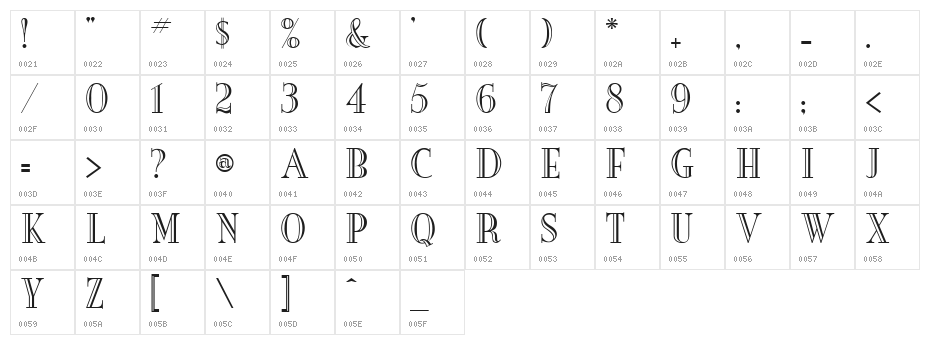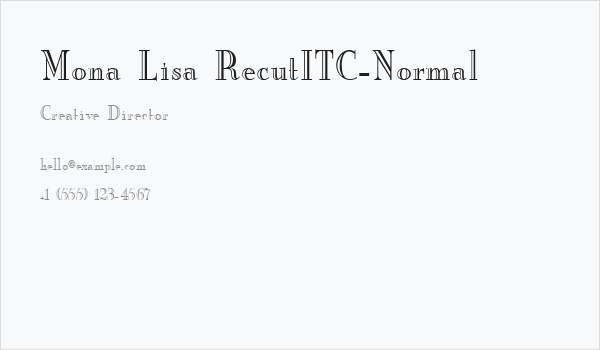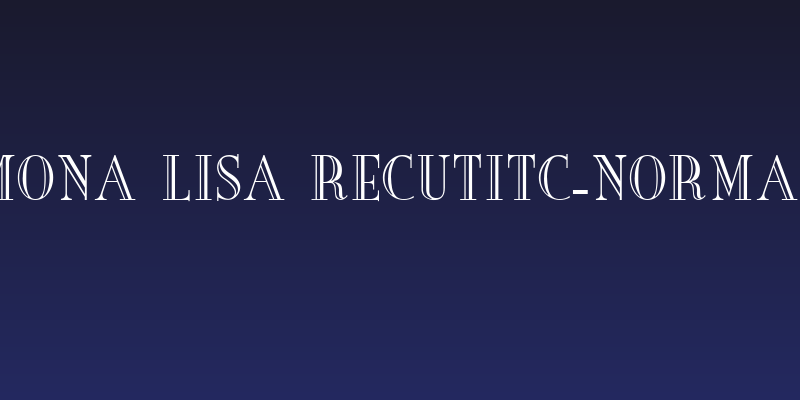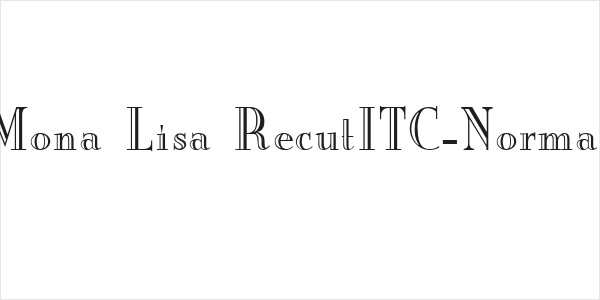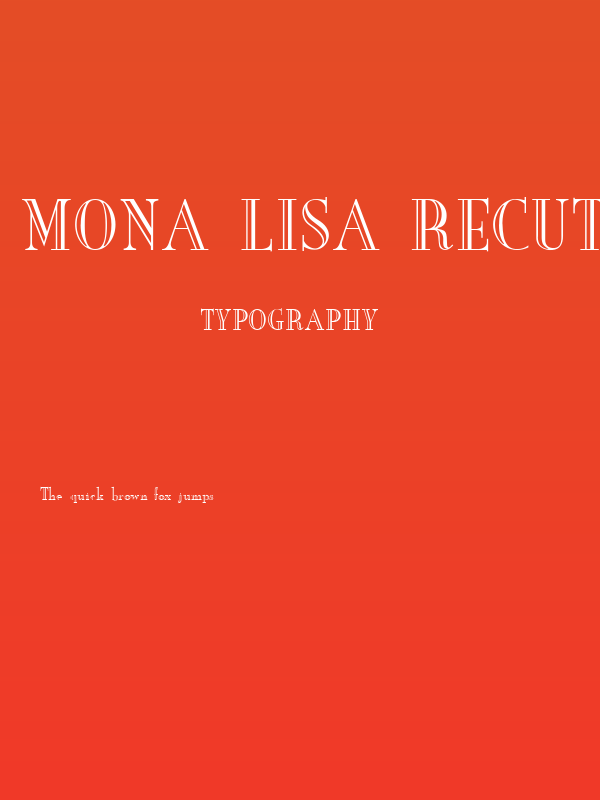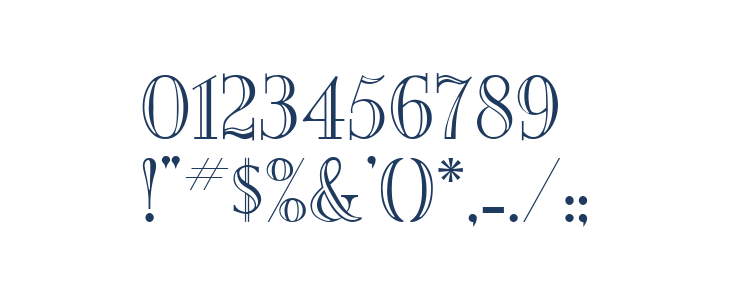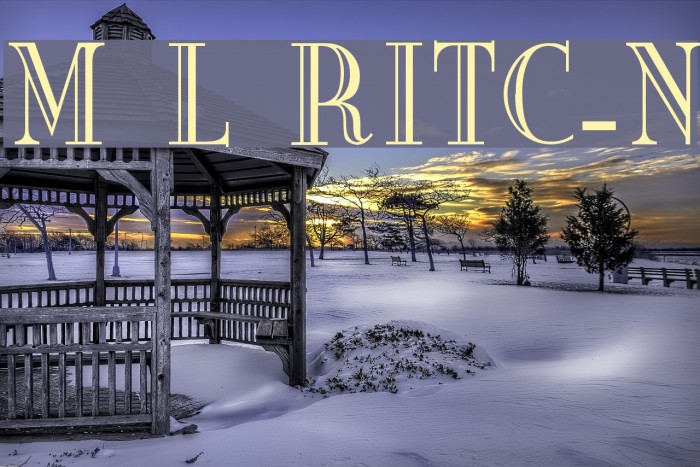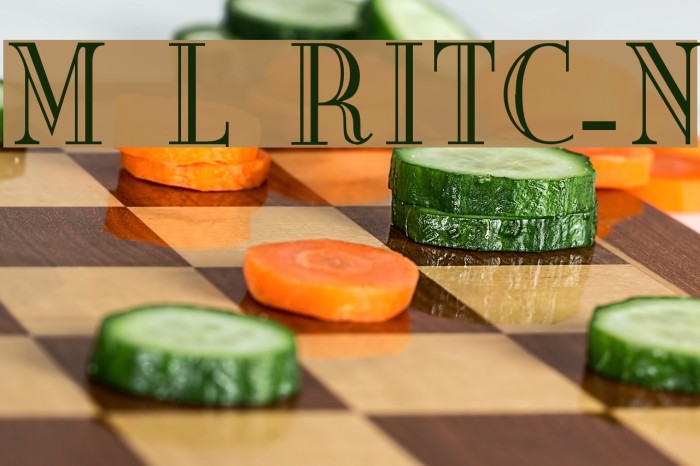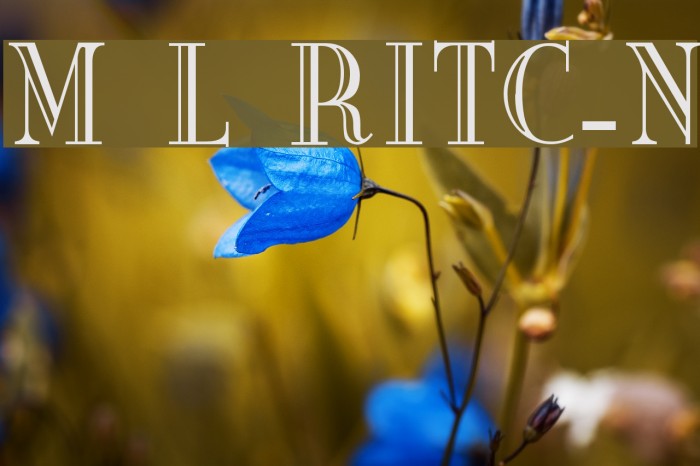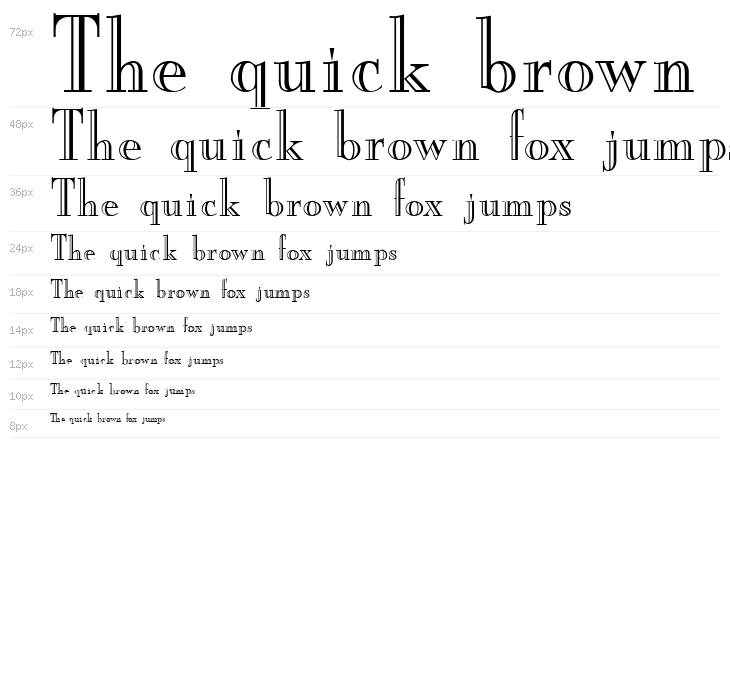
Mona Lisa RecutITC-Normal Font
Mona Lisa RecutITC-Normal Description
This font features a unique blend of elegance and modernity, characterized by its thin, elongated serifs and high contrast between thick and thin strokes. The uppercase letters are tall and stately, with a refined presence that commands attention. Lowercase letters maintain a consistent style, offering a harmonious balance with their uppercase counterparts. The numerals are distinct and stylish, with a flair that adds sophistication to any design. Special characters are crafted with precision, enhancing the font's versatility. Overall, this font exudes a sense of luxury and refinement, making it ideal for high-end branding and editorial design.
| Use Case | Headlines, Logos, Editorial design |
| Proposed Projects | Ideal for luxury branding, editorial design, fashion magazines, and high-end product packaging. |